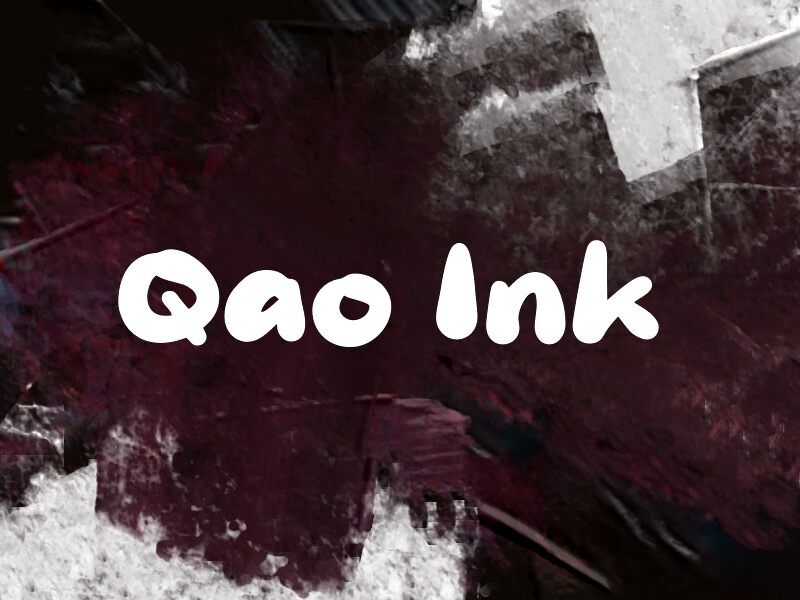
Qao Ink font, designed by wep, is a free cartoon typeface with a whimsical and playful flair. Its unique style captures a sense of fun and creativity, making it a great choice for projects that need a touch of charm. The font can liven up your designs or simply add a distinctive element to your work.
Use this free font for poster titles, movie titles, game designs, comics, and cartoon characters. It is great for t-shirts, mugs, and stationery items, or digital designs like blog and social media content. Make your website, app, or even presentation more entertaining.
Qao Ink is a unique free font that combines creativity with versatility, making it an excellent choice for various design projects. Whether you're working on a logo, poster, or digital artwork, this font adapts to your needs, providing an appealing visual style.